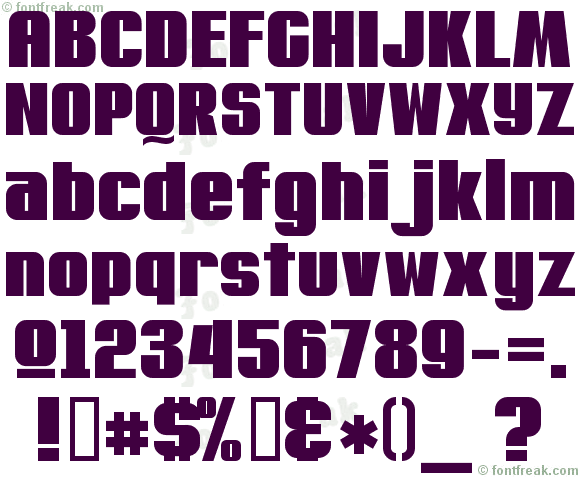
MachaCow
About MachaCow
MachaCow, designed by Antonio Bucu in 1999, is a striking display font that effortlessly blends boldness with a unique flair. As a freeware typeface, it is an excellent choice for those seeking to make a memorable impact without the constraints of licensing fees. This font embodies a contemporary style characterized by its thick, substantial strokes and a balanced weight that maintains legibility while commanding attention. The letters exhibit minimal contrast, which enhances their bold appearance and ensures clarity across various applications.
The MachaCow font features clean lines and a slightly geometric structure, making it versatile for multiple design contexts. Its spacing is thoughtfully considered, providing a pleasing visual rhythm that enhances readability. This font is particularly well-suited for eye-catching use cases such as movie posters, where it can create a dynamic focal point; restaurant menus, where its boldness can highlight special dishes; and event promotions, where it can draw in crowds with its unique character. Additionally, MachaCow is a fantastic choice for branding initiatives, helping small business owners establish a strong visual identity.
Graphic designers and content creators will find MachaCow an invaluable addition to their font library, offering a blend of modern aesthetics and functional design. The font’s distinctive style allows it to stand out in a crowded marketplace, making it ideal for projects that require a touch of personality and creativity.
In summary, the MachaCow font free download is not just another typeface; it is a bold statement piece that elevates any design project. Its unique visual characteristics and versatility make it a standout choice for anyone looking to leave a lasting impression.